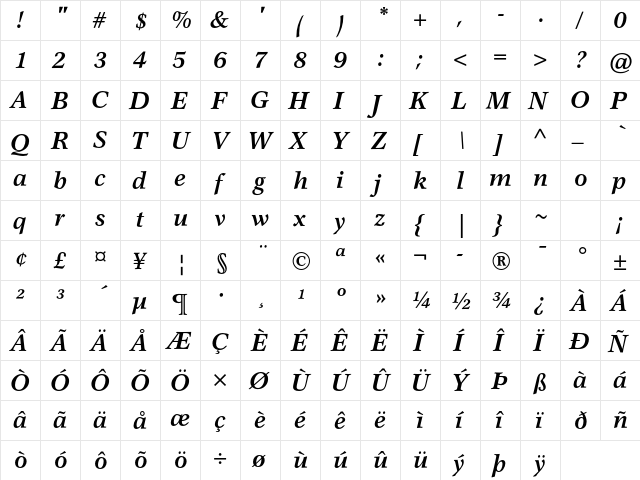
Garth Graphic Std Bold Italic
Design Context for Garth Graphic Std Typeface
Garth Graphic Std is a composed and adaptable typeface that performs quietly and consistently across a wide range of design contexts. The dynamic lean of this cut emphasises speed and emphasis in any layout. Its bold stroke weight gives it real presence on the page.
Pro Tip: Use Garth Graphic Std for emphasis, pull quotes, and subheadings where its slanted energy can add rhythm to the layout.